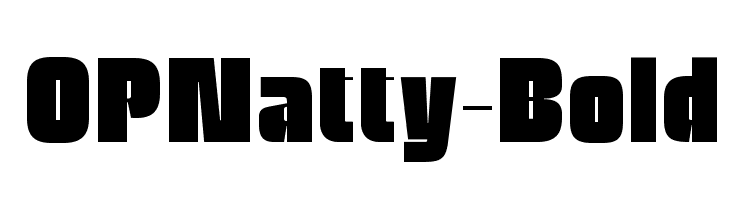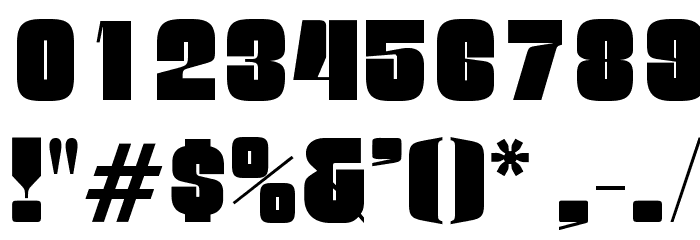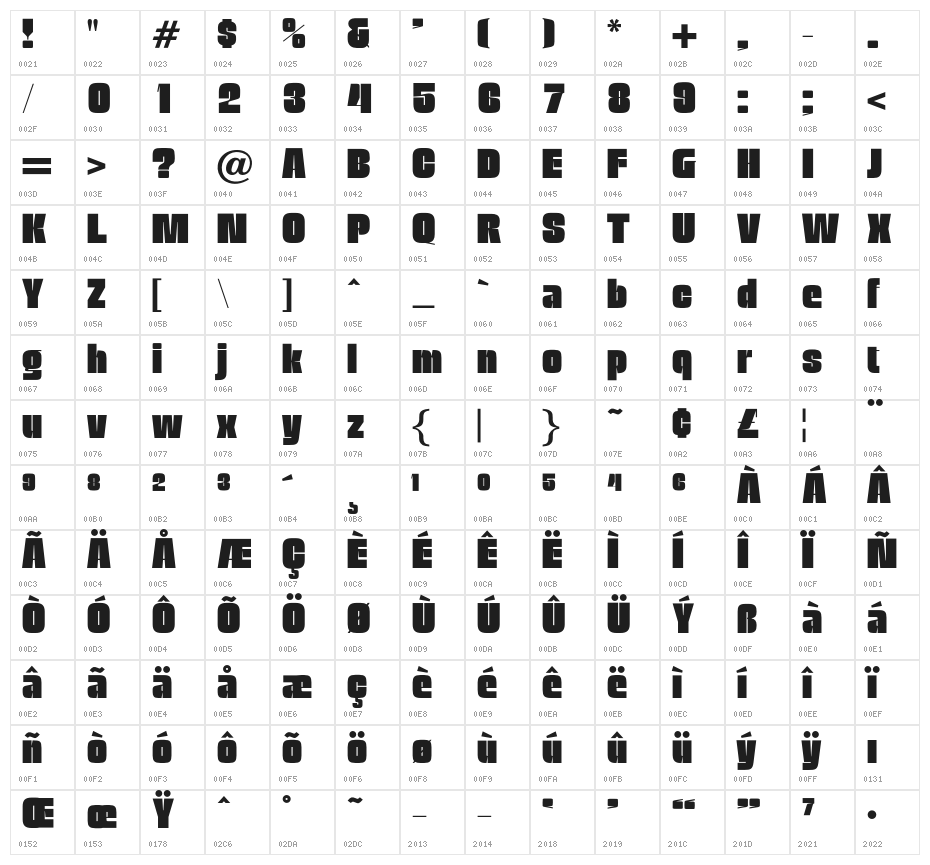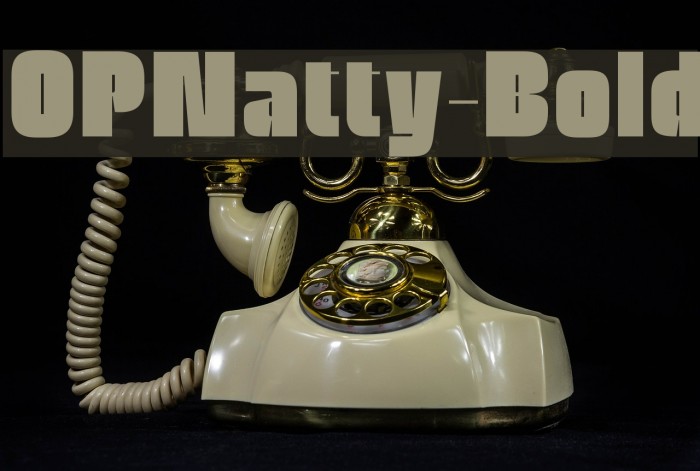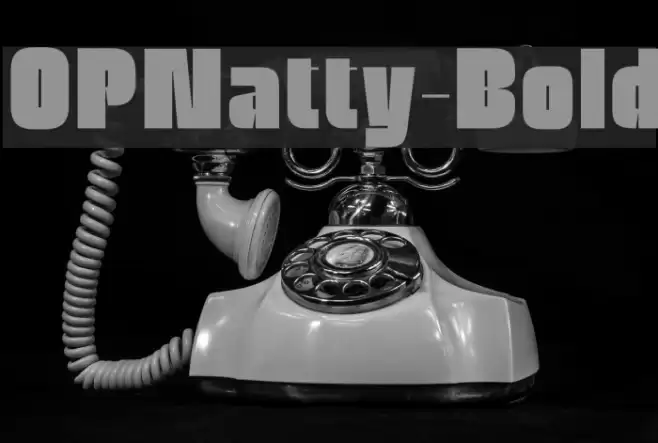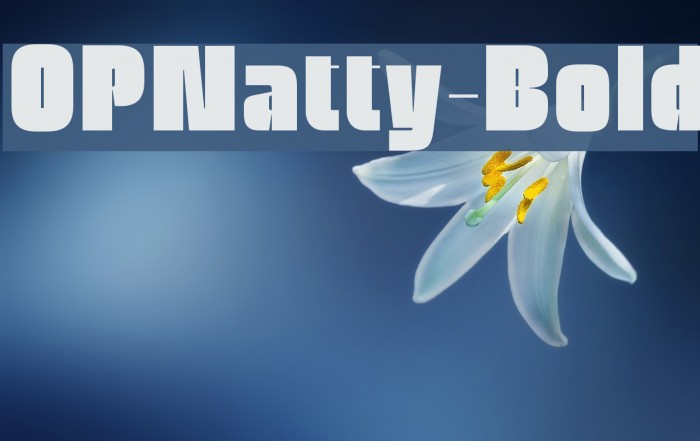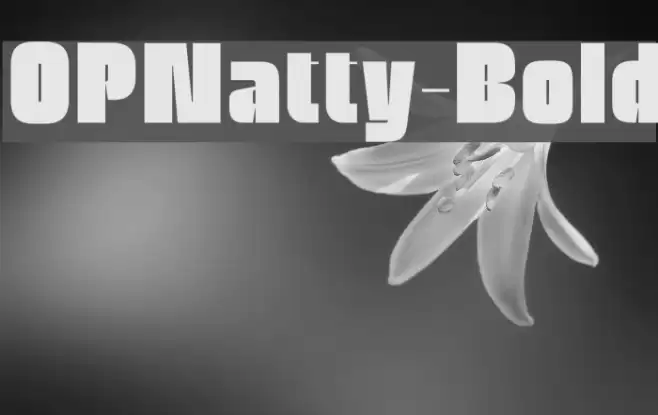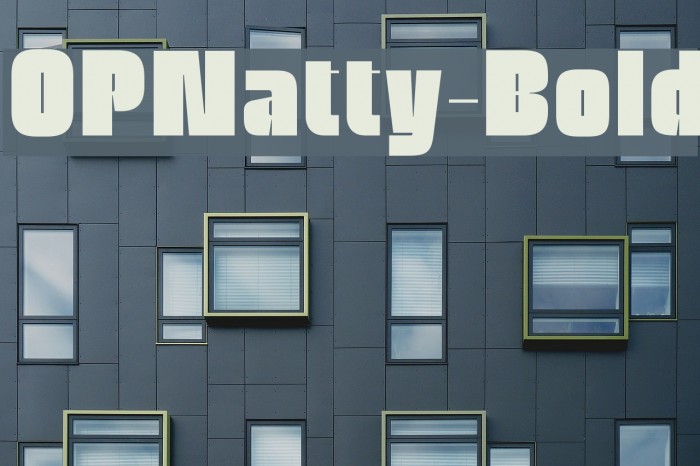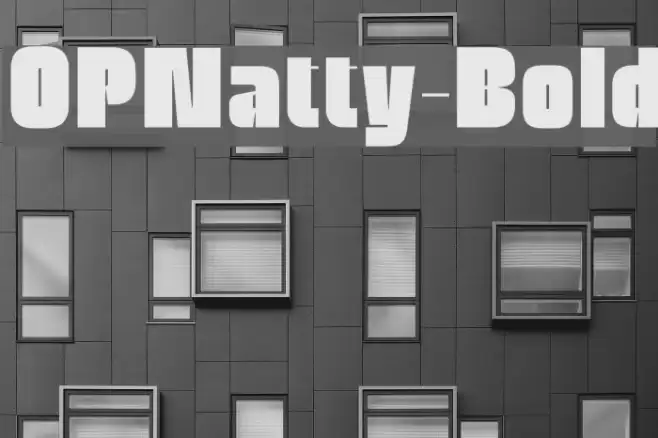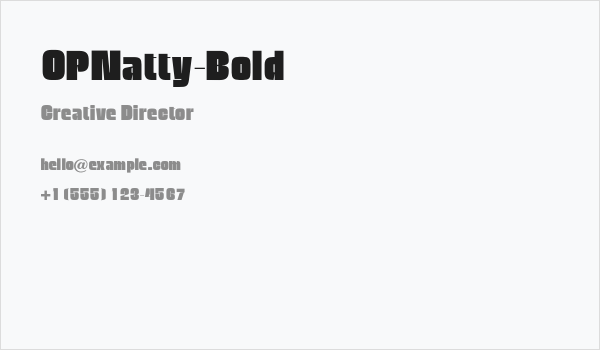
OPNatty-Bold Font
OPNatty-Bold Description
This bold and striking font features thick, blocky characters with a strong presence. The uppercase letters are particularly wide and imposing, making them ideal for attention-grabbing headlines. The lowercase letters maintain a consistent thickness, ensuring readability while still conveying a sense of strength. The numerals are equally bold, matching the overall aesthetic of the alphabet. Special characters are designed with the same robust style, ensuring a cohesive look across all text. The font's high contrast in stroke thickness adds to its dramatic appearance, making it suitable for impactful designs.
| Proposed Projects | Ideal for posters, logos, and branding materials where a bold statement is needed. |